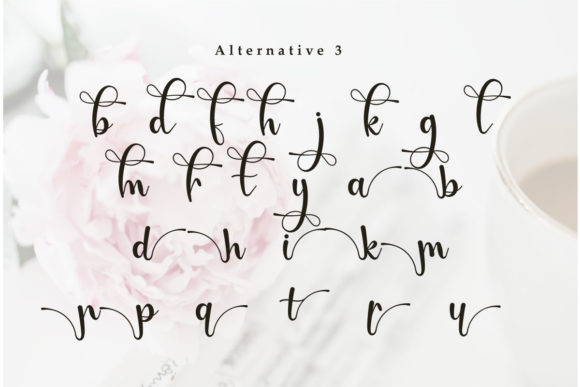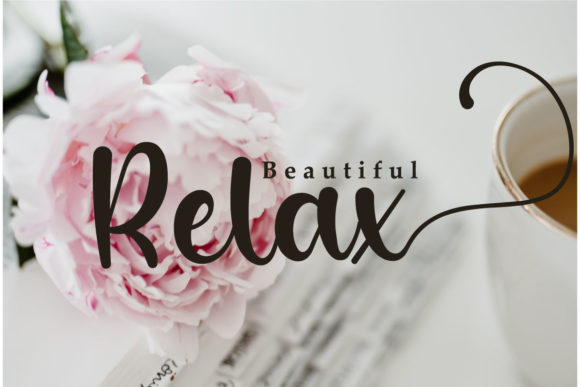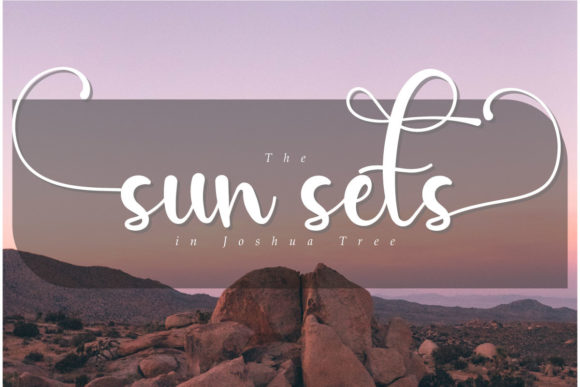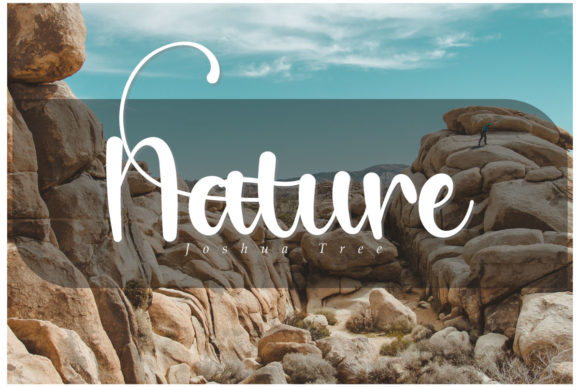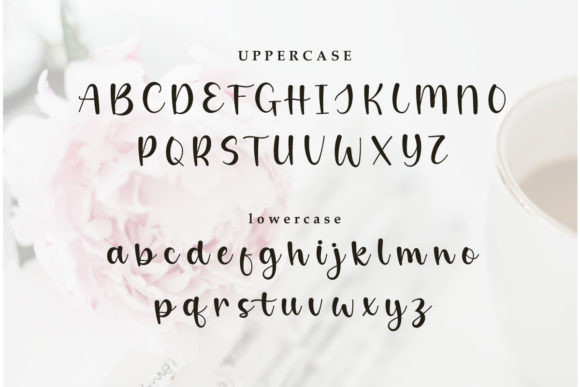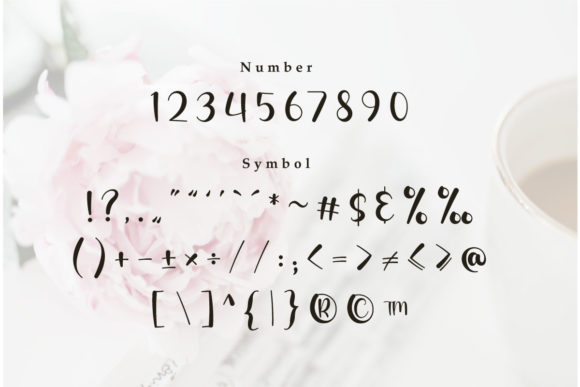
About Multiverse Font
“Multiverse” is a charming and delicate handwritten font that embodies a sweet and joyful essence. With its dainty and elegant appearance, this font is perfect for writing wedding invitations, cards, or any other designs that call for a romantic and personalized touch.
The font’s delicate and handwritten style brings a sense of grace and warmth to your designs. Whether you’re creating wedding stationery, designing greeting cards, or working on projects that require a personal and intimate feel, “Multiverse” has the ability to infuse your creations with a touch of romance and sentiment.
The font’s suitability for such occasions is evident in its capacity to convey emotions effectively. Its joyful and delicate nature makes it an ideal choice for enhancing designs with an air of intimacy and celebration. By incorporating “Multiverse” into your projects, you introduce an element of charm and personalization that resonates deeply with recipients.
In summary, “Multiverse” is more than just a font—it’s a creative tool that enhances your ideas with its sweet and delicate handwritten style. Its versatility and ability to evoke romantic and joyful sentiments make it a valuable asset for designers seeking to create heartfelt and visually appealing designs that leave a lasting impression.